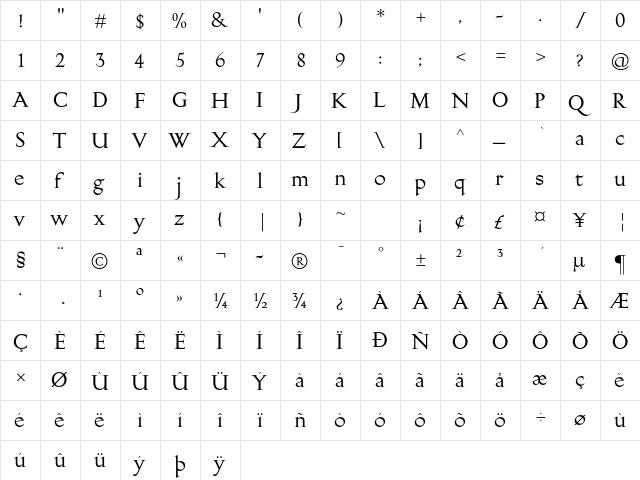
Gill Facia MT Std Regular Font Preview
Gill Facia MT Std Regular
Design Context for Gill Facia MT Std Typeface
Gill Facia MT Std is a composed and adaptable typeface that performs quietly and consistently across a wide range of design contexts.